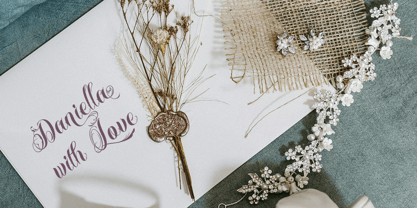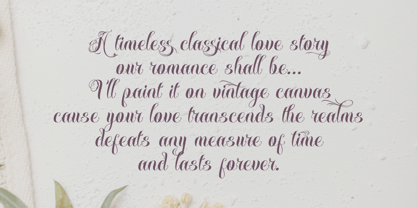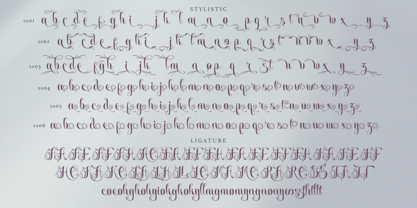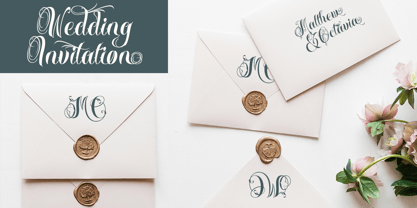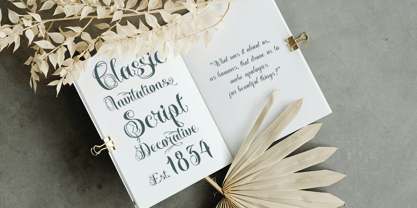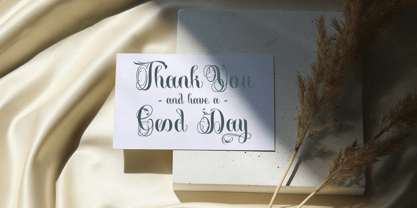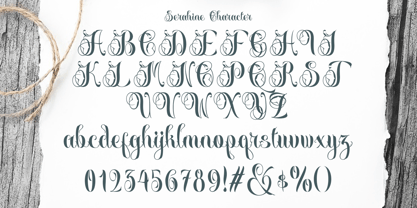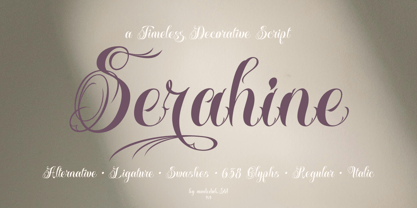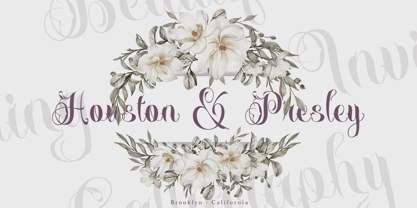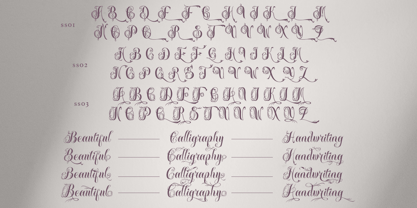
Serahine
La familia tipográfica Serahine fue diseñada por madededuk y publicada por madeDeduk. Serahine contiene 2 estilos y opciones de paquete familiar. Más información sobre esta familia
Serahine is a luxury decorative script featuring refined ornamental curves and artistic details in every letter. Its graceful and rhythmic forms convey a classic, elegant, and high-end impression, inspired by European aristocratic typography. Each stroke is carefully crafted to emphasize exclusivity and visual beauty. This font is perfect for poster titles, premium logos, formal invitations, exclusive branding, and decorative designs that require a touch of luxury. With its strong yet harmonious character, this font can become the main focus of a design and elegantly reinforce its visual identity.